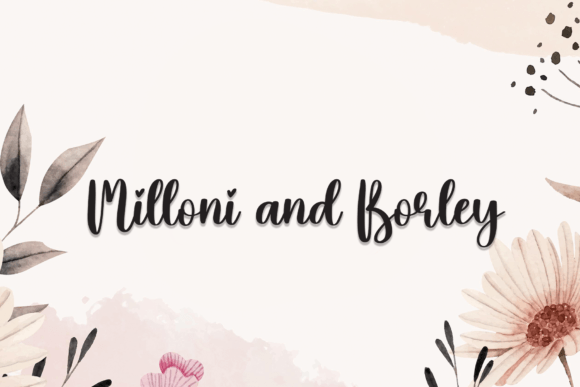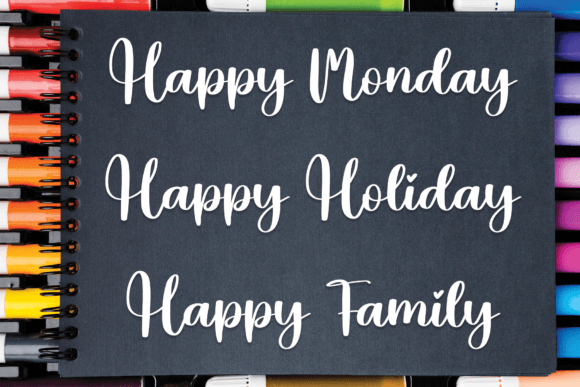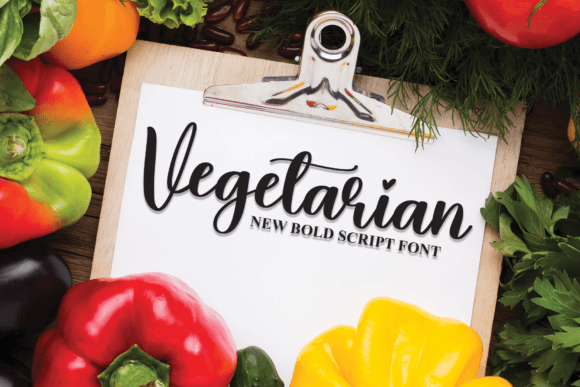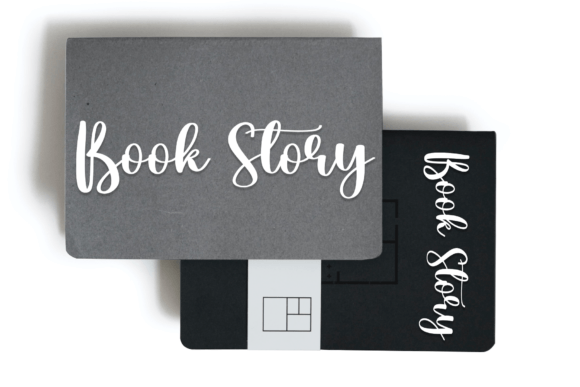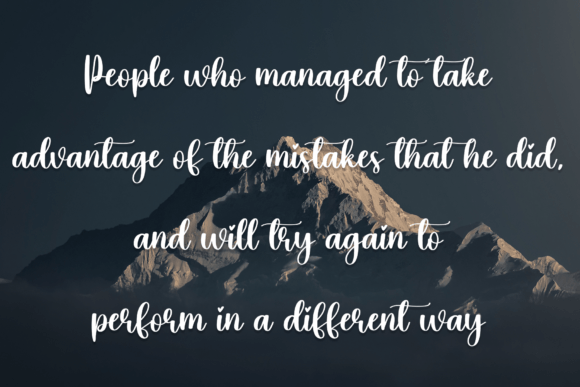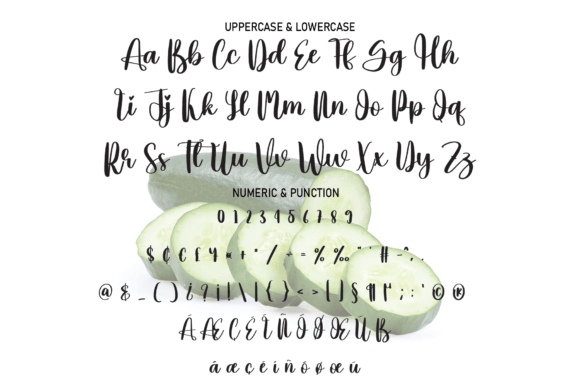
Cucumber Font: Elevate Your Designs with a Touch of Elegance
In the world of typography, a font can make or break a design. It’s the perfect blend of style, sophistication, and personality that can elevate a project from ordinary to extraordinary. If you’re on the hunt for a font that exudes elegance, sophistication, and a dash of modernity, look no further than the Cucumber Font. This exquisite handwritten font is masterfully designed to capture the hearts of designers and crafters alike, offering a perfect blend of classic calligraphic influences and contemporary flair.
The Essence of Cucumber Font
Cucumber Font is a true gem in the realm of typography. Its design is rooted in traditional calligraphy, yet it boasts a fresh and modern appeal that sets it apart from more conventional fonts. The result is a typeface that feels both timeless and cutting-edge, making it an incredibly versatile choice for a wide range of projects. Whether you’re working on a wedding invitation, a branding campaign, or a packaging design, Cucumber Font is sure to bring a touch of class and sophistication to your work.
What Makes Cucumber Font Stand Out?
- Handwritten with Love: Cucumber Font is meticulously crafted with a personal touch, giving it a unique and authentic feel that resonates with readers.
- Classy Calligraphic Influences: The font’s roots in traditional calligraphy are evident, providing an air of elegance and refinement to any text.
- Contemporary and Fresh: Despite its classic influences, Cucumber Font feels remarkably modern, ensuring your designs stay current and engaging.
- Versatility at Its Best: Suitable for a myriad of projects, from digital content to print materials, Cucumber Font adapts effortlessly to various design needs.
Why Fall in Love with Cucumber Font?
The allure of Cucumber Font lies in its ability to transform any piece of text into a visually stunning work of art. Its elegant strokes and fluid connections create a harmonious flow, making reading a pleasure. Moreover, its distinctive character ensures that your designs stand out in a crowded digital landscape. Whether you’re a professional designer or a crafting enthusiast, Cucumber Font offers the perfect blend of aesthetic appeal and practicality.
Using Cucumber Font in Your Projects
Incorporating Cucumber Font into your designs is a straightforward process that can significantly elevate your work. Here are a few tips on how to make the most of this exquisite font:
- Pair it Wisely: Combine Cucumber Font with complementary fonts to create visual interest and hierarchy in your designs.
- Experiment with Colors: Take advantage of Cucumber Font’s versatility by experimenting with different colors and textures.
- Play with Sizes: Utilize varying font sizes to add emphasis and create a dynamic visual flow.
Cucumber Font is more than just a typeface; it’s a design statement. With its exquisite handwritten style, classy calligraphic influences, and contemporary freshness, it’s poised to become your go-to font for projects that demand a touch of elegance and sophistication. Whether you’re a seasoned designer or a crafting aficionado, Cucumber Font offers the perfect opportunity to elevate your designs and leave a lasting impression. So, fall in love with Cucumber Font and bring your projects to the highest levels of creativity and refinement.
Discover the beauty of Cucumber Font today and transform your designs with its unique charm and character.